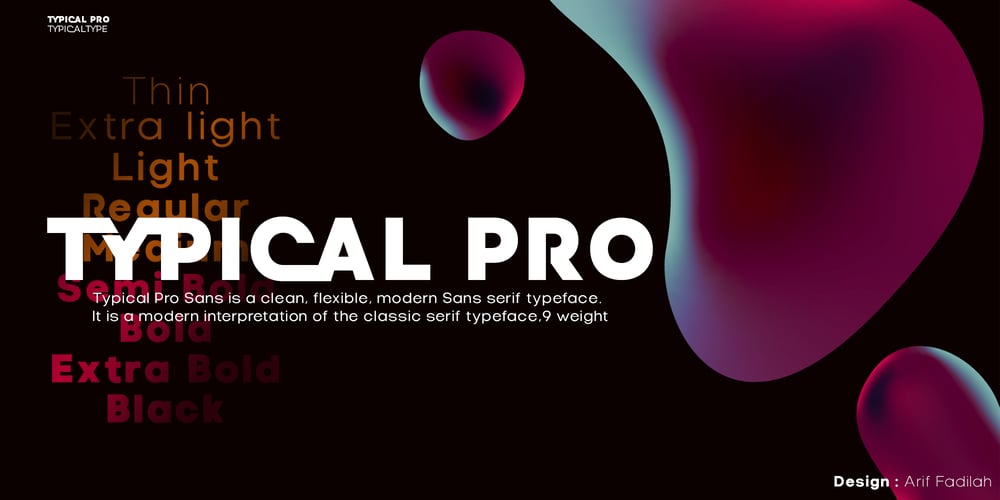
Typical Pro
Typical Pro font
Typical Pro Font Family was designed by Arif Fadilah and published by Typicaltype. Typical Pro contains 9 styles and family package options. Get ready for a modern spin on your typographic projects with the Typical Pro Sans Serif Font 9 Weight. This font offers a clean, grotesk feel that is perfect for any technical or heading design. Its contemporary design makes a perfect choice for projects with a modern flair. With clean lines, tight letter spacing, and a classic sans serif style, this font is sure to bring a unique edge to any project. Enjoy the perfect mix of texture and proportion with this modern font. Get ready to take your typography to the next level with Typical Pro Sans Serif Font 9 Weight.Typical Pro Sans Serif Font is a grotesk typeface of modern design, with technical precision and a clean finish. Its 9 weight offers clear and refined letters that provide perfect legibility for headlines and other text styles. Its line height is consistent and balanced, making it suitable for producing high-impact visual messages. Its modern, straightforward letterforms give projects an air of sophistication, while retaining a firm technical backbone. With nine different weights, it is the perfect choice for any heading or label that requires a strong, contemporary look.